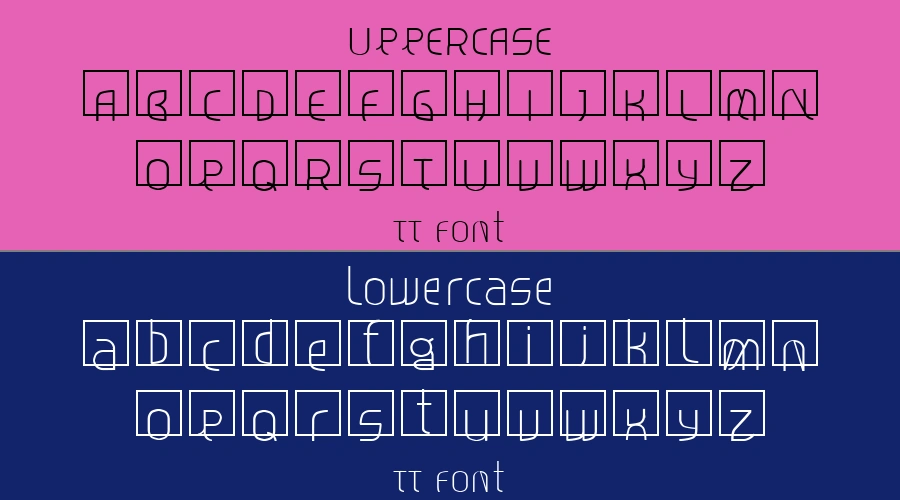
About TT Font
TT Font stands out for its distinctive combination of elegant spacing and professional standards. Ideal for product naming, it provides the consistency and consumer connection that professional projects demand. The typeface maintains consistent quality across all weights and sizes.
Key features include refined flourished entries and practical terminal forms, enhancing typographic expression. In data tables applications, TT Font demonstrates exceptional compatibility. The joint construction and engineering heritage contribute to its distinctive character and professional appeal.
TT Font |